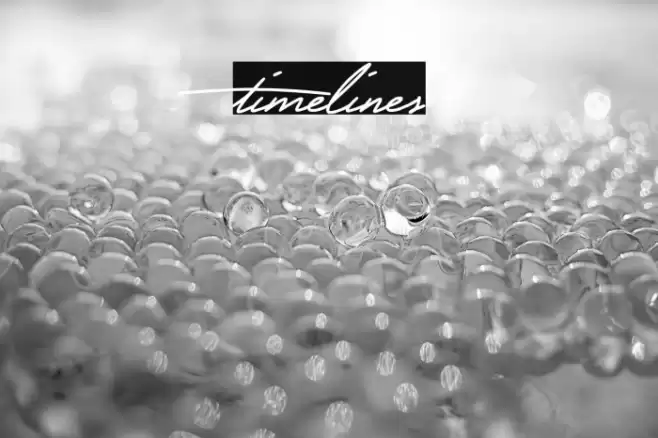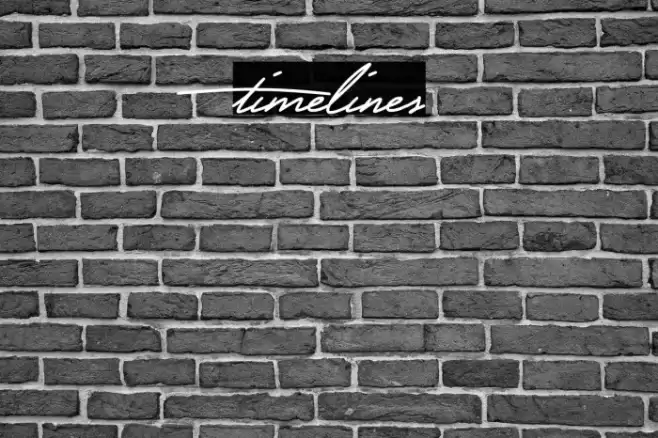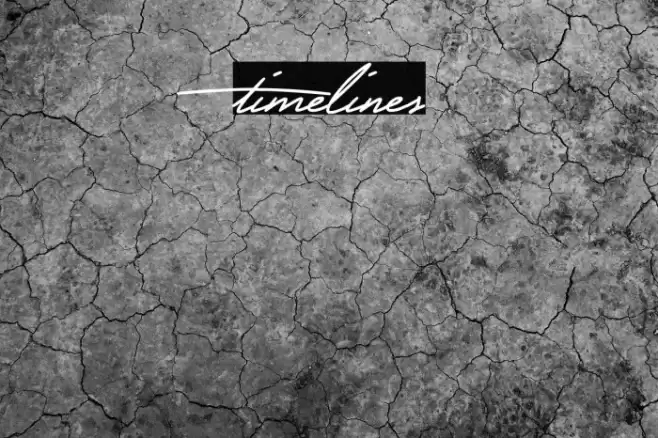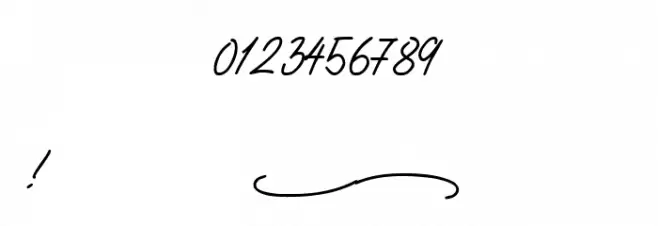
Timelines Font
Timelines Description
This elegant script font features a flowing, cursive style with smooth, connected strokes that mimic the fluidity of handwriting. The characters are delicately crafted with a slight slant, giving them a dynamic and sophisticated appearance. The uppercase letters are slightly larger, providing a graceful contrast to the more compact lowercase letters. The numerals maintain the same elegant style, ensuring consistency throughout. Special characters like the exclamation mark and decorative swashes add a touch of flair, making this font versatile for various creative applications.
An elegant, flowing script font with a sophisticated, handwritten style from Uncategorized fonts.
- Font: Timelines
- Proposed Projects: Ideal for wedding invitations, elegant branding, personal stationery, and artistic projects requiring a touch of sophistication.
- Overall Style: Elegant, Handwritten
- Use Case: Logos, Invitations, Artistic Projects